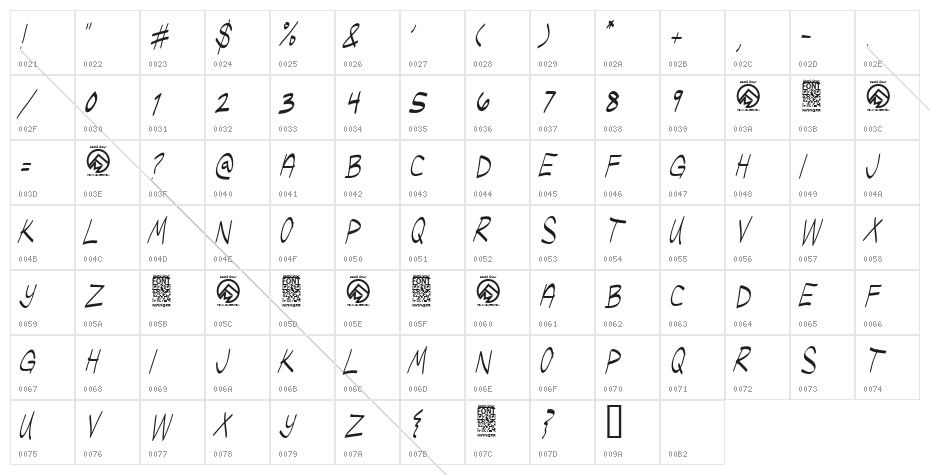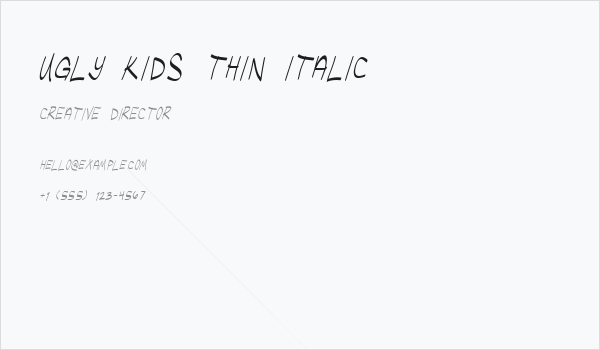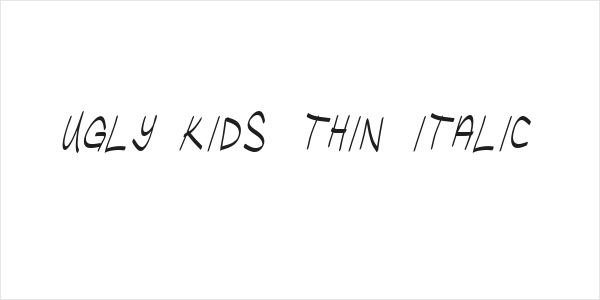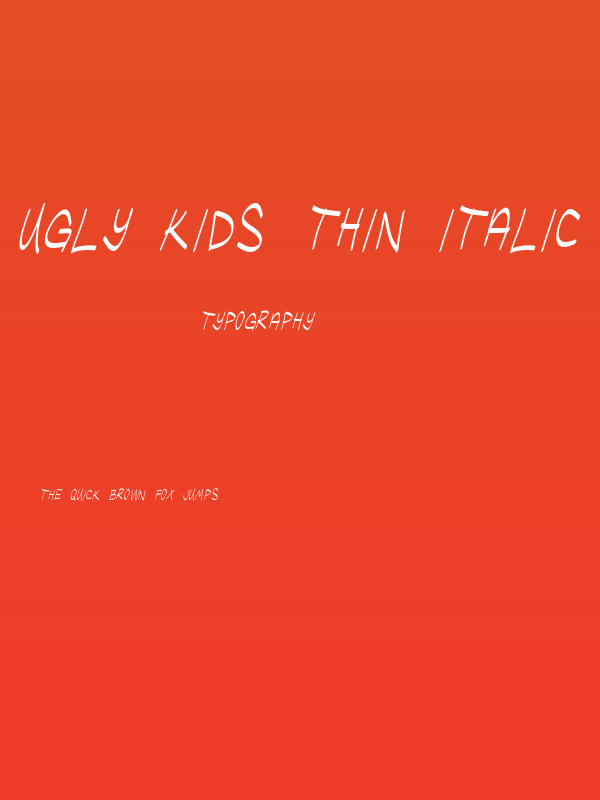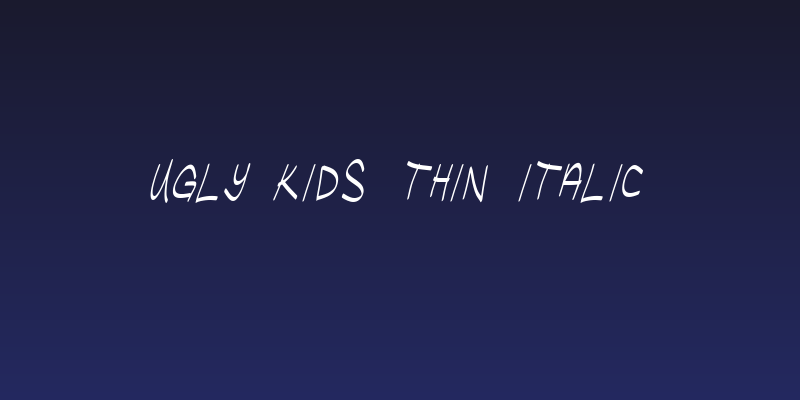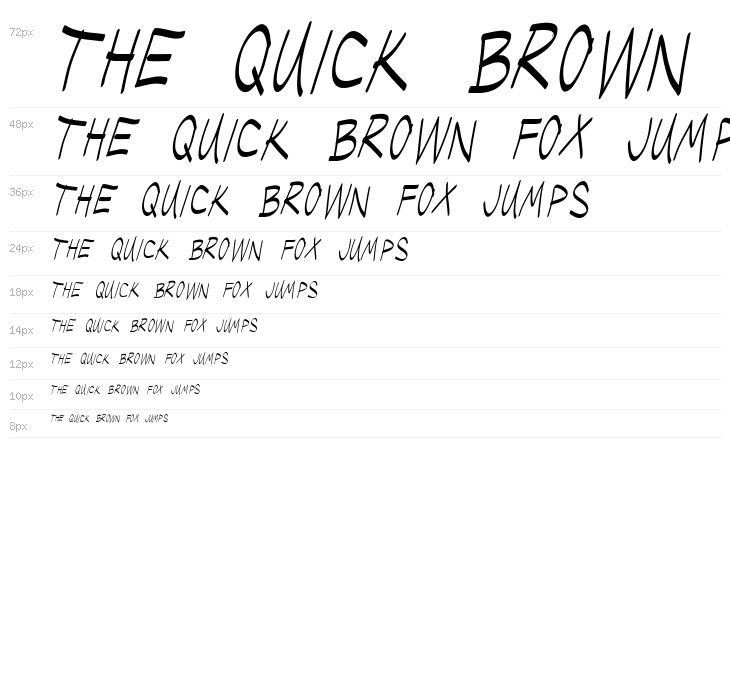
Ugly Kids Thin Italic Font
Ugly Kids Thin Italic Description
This font features a playful and informal style, characterized by its thin, italicized strokes that give it a dynamic and energetic appearance. The letters are slightly slanted, adding a sense of movement and spontaneity. The uppercase and lowercase letters maintain a consistent flow, with rounded edges and a hand-drawn feel. The numbers and special characters follow the same whimsical design, making it suitable for creative and casual projects. Its unique style stands out, making it ideal for projects that require a touch of fun and personality.
Overall StylePlayful
Use CaseHeadlines, Logos, Creative projects
Proposed ProjectsIdeal for children's book covers, playful branding, casual invitations, and creative posters.